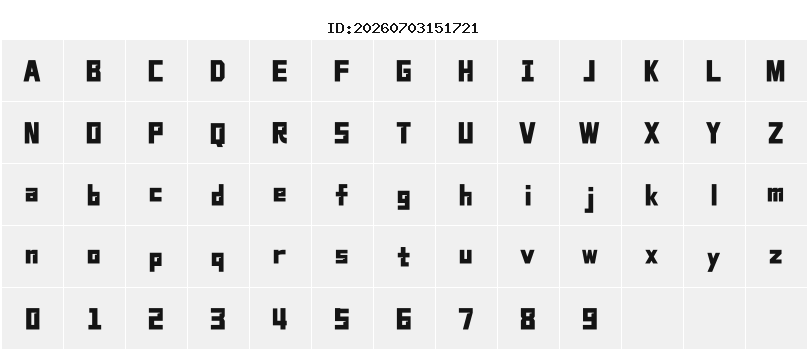
313-上首亦方体 Preview
• Font Name: 313-上首亦方体
• Font ID: 313-SSYiFangTi:Version 4.00
• Full Font Name: 313-上首亦方体
• Version: Version 4.00 January 27, 2024
• PostScript Name: 313-SSYiFangTi
• Character Count: 7567
About 313-上首亦方体.ttf
313-上首亦方体.ttf is a modern, elegant sans-serif font designed for ultimate readability and visual harmony. Perfect for branding, headlines, web design, and print materials.